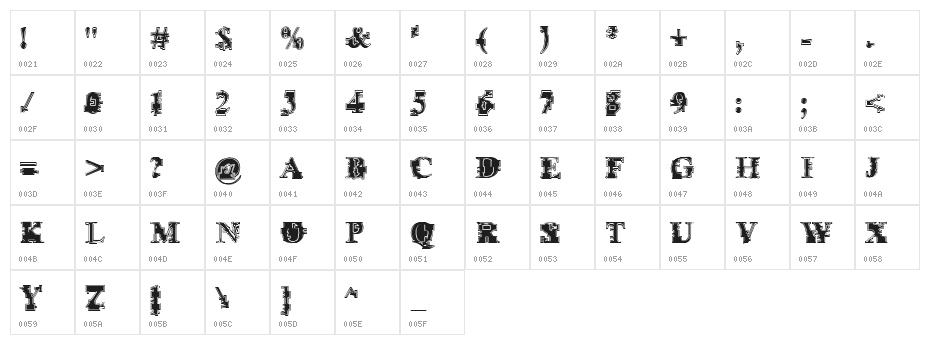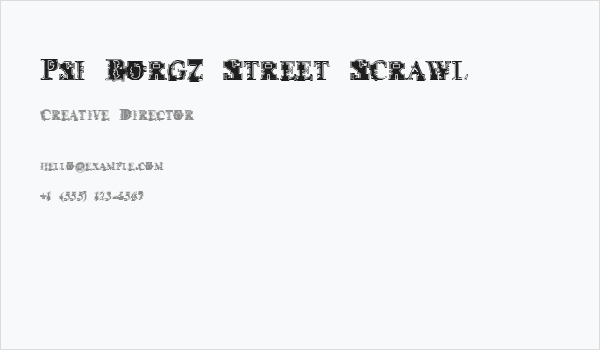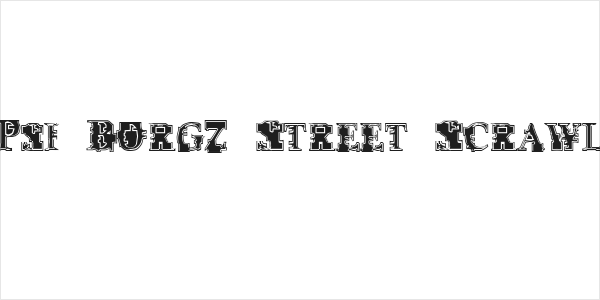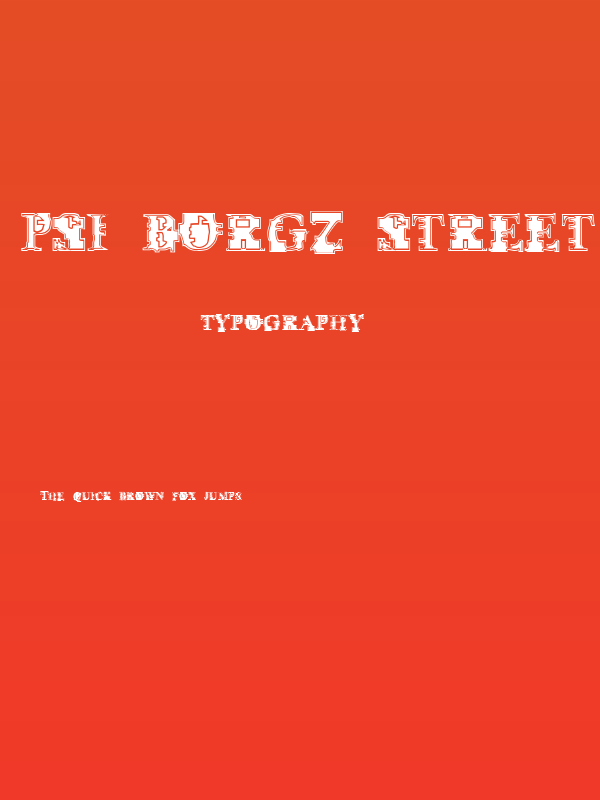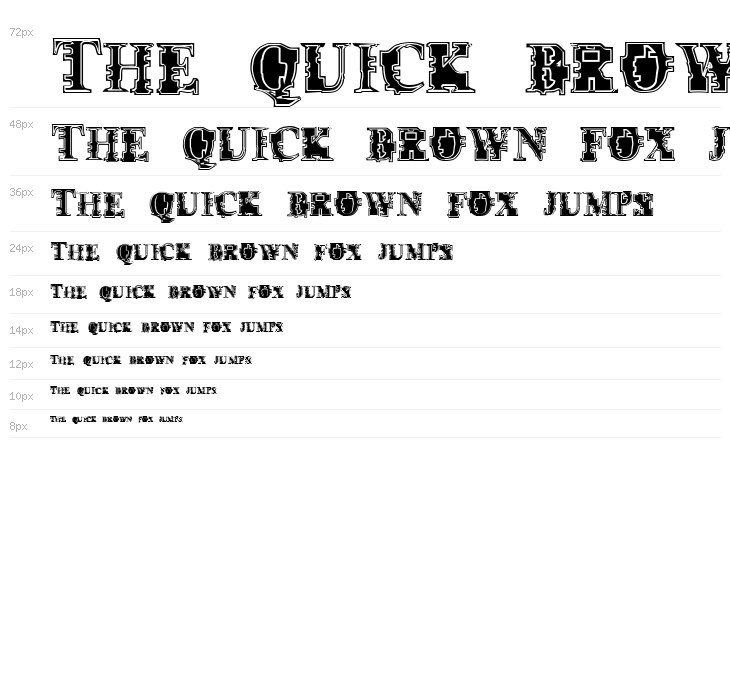
Psi Borgz Street Scrawl Font
Psi Borgz Street Scrawl Description
This font features a bold, edgy design with a graffiti-inspired aesthetic. The characters are heavily stylized with jagged edges and irregular shapes, creating a sense of movement and energy. The uppercase and lowercase letters maintain a consistent style, with a strong emphasis on angular forms and a distressed look. The numbers and special characters follow the same theme, adding to the overall cohesive appearance. This font is perfect for projects that require a rebellious, urban vibe, making it ideal for street art, music album covers, or edgy branding.
PSI-BORGZ-STREET-SCRAWL UPPERCASE
PSI-BORGZ-STREET-SCRAWL LOWERCASE
PSI-BORGZ-STREET-SCRAWL OTHER CHARS
| Overall Style | Urban, Edgy, Graffiti |
| Use Case | Logos, Posters, Headlines |
| Proposed Projects | Street art, music album covers, edgy branding, urban-themed posters. |